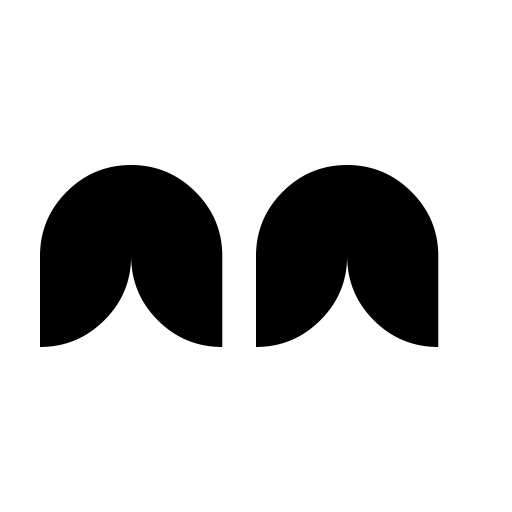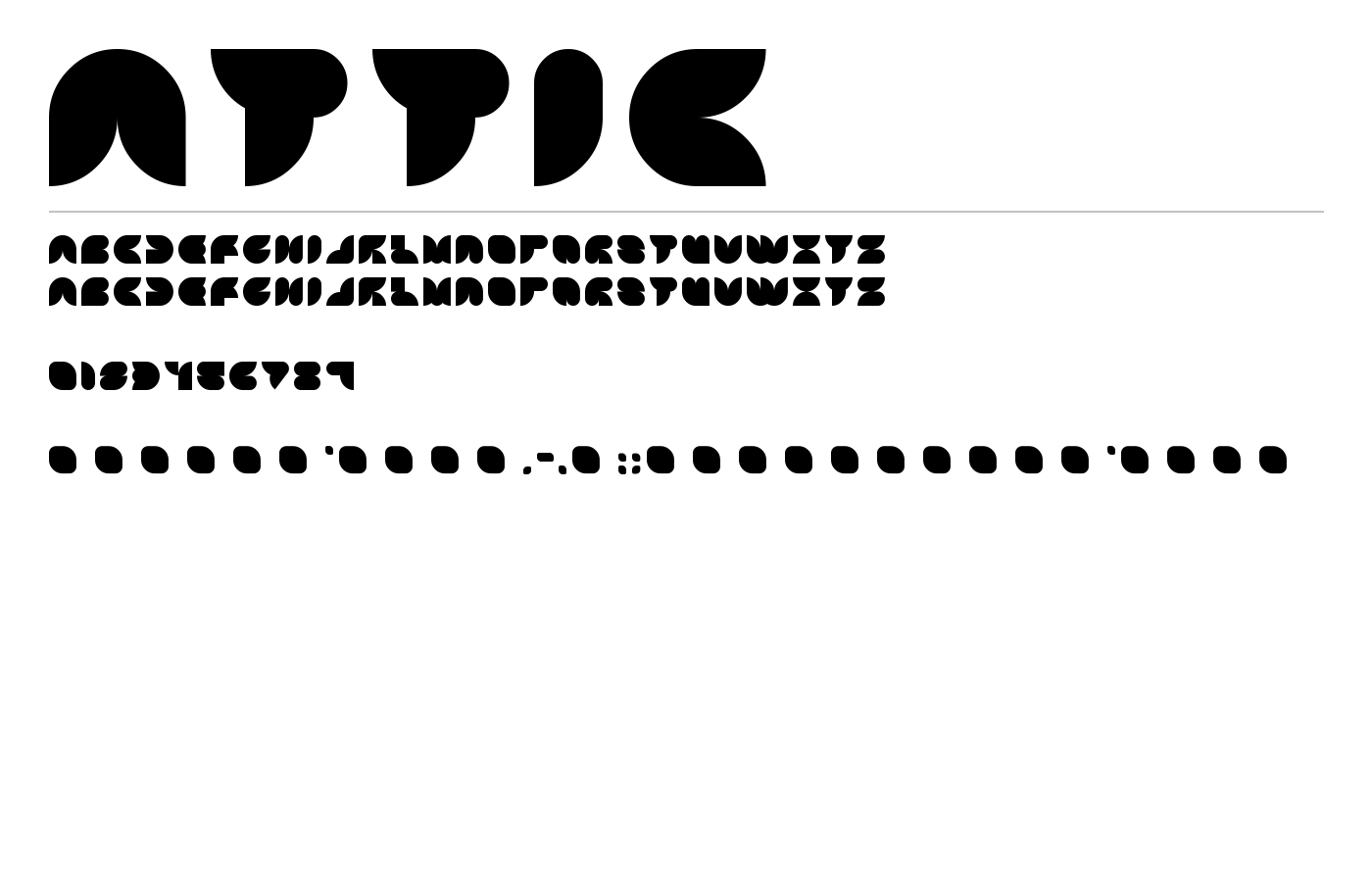
Attic is a bold, geometric sans serif font with a playful, modern character. Its rounded, blocky shapes and strong contrast between solid strokes and cut-out spaces make it ideal for attention-grabbing headlines, logos, and creative branding that seeks a unique, futuristic vibe. This font works best in display settings where its distinctive style can shine and add a dynamic, contemporary edge.
Attic Font